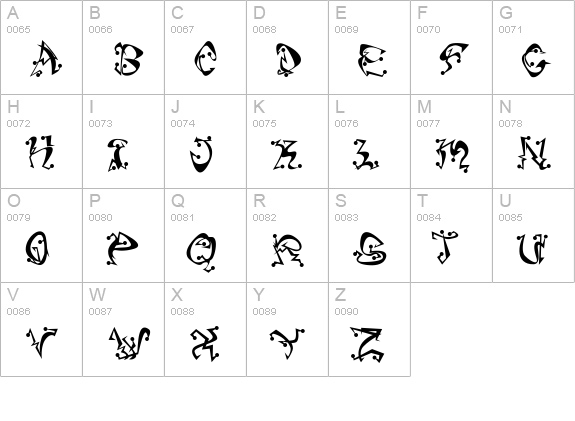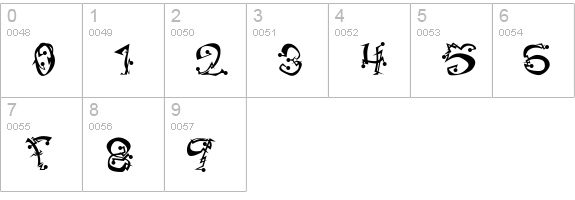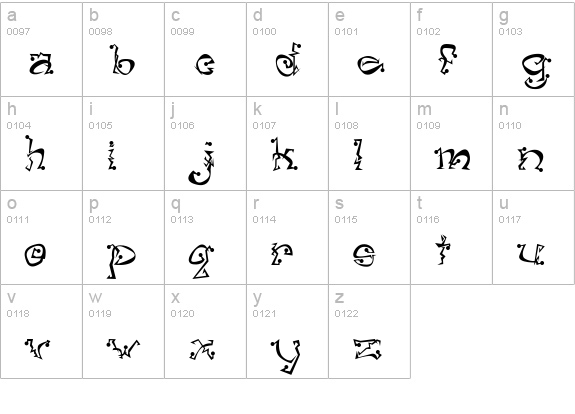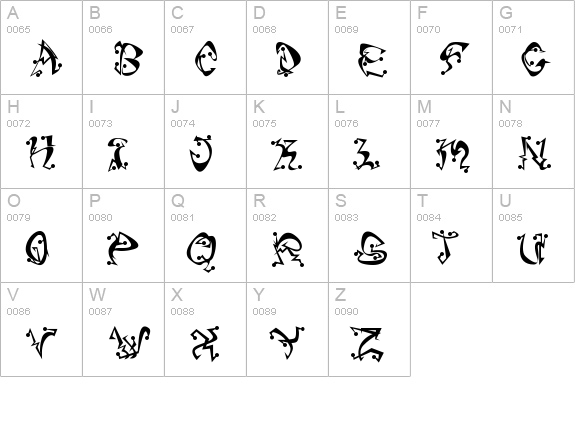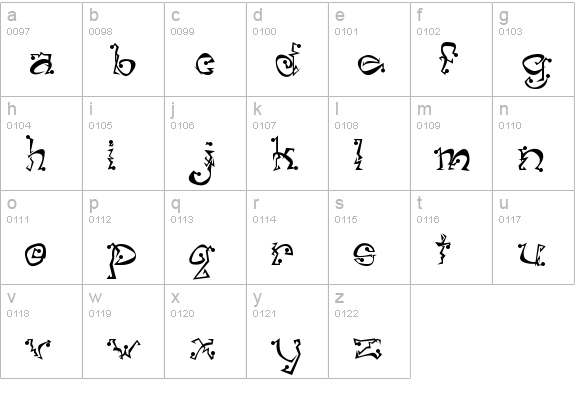
Tagged Font Details
Introducing the captivating and versatile Tagged font! This remarkable typeface is the epitome of modern design, exuding an air of sophistication and creativity. With its sleek and stylish letterforms, Tagged font effortlessly adds a touch of elegance to any project. What makes Tagged font truly exceptional is not only its impeccable craftsmanship but also its incredible accessibility. This font is available for free, making it the ideal choice for budget-conscious designers and individuals who appreciate the value of high-quality fonts without breaking the bank. Tagged font is the perfect companion for a wide range of design projects, from eye-catching logos and branding materials to captivating advertisements and engaging social media posts. Its legible yet distinctive letterforms ensure that your message will be conveyed with clarity and impact. And the best part? Tagged font is freely available to download at FontsMarket.com. This user-friendly website offers a vast collection of fonts, allowing you to conveniently access and explore a world of typographic possibilities. So, whether you're a professional designer seeking a font that combines elegance and versatility, or an aspiring creative looking to elevate your projects with a touch of sophistication, Tagged font is the perfect choice. Download it today at FontsMarket.com and embark on a typographic journey that will leave a lasting impression.